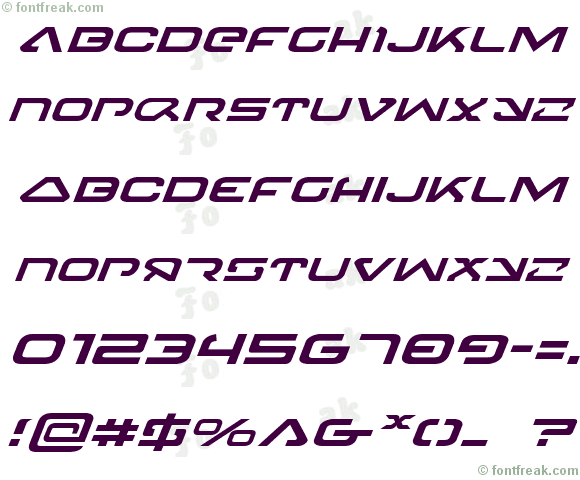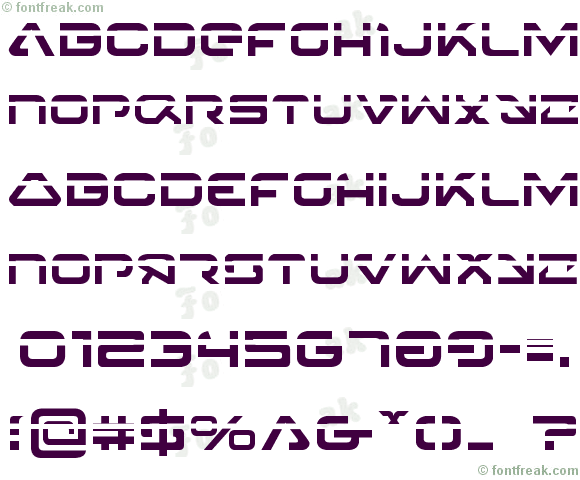
4114 Blaster Condensed Italic
4114 Blaster 3D Italic
4114 Blaster Italic
4114 Blaster Condensed
4114 Blaster 3D
4114 Blaster Expanded Italic
4114 Blaster Laser
4114 Blaster Laser Italic
4114 Blaster Expanded
4114 Blaster
4114 Blaster Leftalic
The 4114 Blaster font by Iconian Fonts is a striking display typeface that embodies a futuristic aesthetic, making it an excellent choice for projects that require a bold and dynamic visual impact. This condensed italic font features a unique 3D design that gives it a sense of depth and movement, reminiscent of laser graphics and sci-fi themes. The stroke weight is consistent, with a clean, modern look that enhances readability while still capturing attention. The spacing is tight, allowing for a compact presentation, which is perfect for headlines and titles.
This font is particularly suitable for a variety of creative applications. It shines in movie posters, where its bold appearance can effectively convey excitement and action. Additionally, the 4114 Blaster font works well for video game graphics, promotional materials for tech events, and eye-catching signage for modern businesses. Its futuristic vibe also makes it an attractive choice for event branding, particularly in sectors focusing on innovation or science fiction.
The target audience for this font includes graphic designers looking to add a distinctive element to their work, small business owners seeking to create memorable branding, and content creators in need of attention-grabbing typography. Whether you're designing a website, creating merchandise, or developing a marketing campaign, this font can elevate your project.
What sets the 4114 Blaster font apart is its ability to combine simplicity with striking visual appeal. As a freeware option, it offers an accessible way for designers and businesses to enhance their projects without breaking the bank. For those interested in elevating their visual storytelling, the 4114 Blaster font free download is an excellent addition to any creative toolkit.